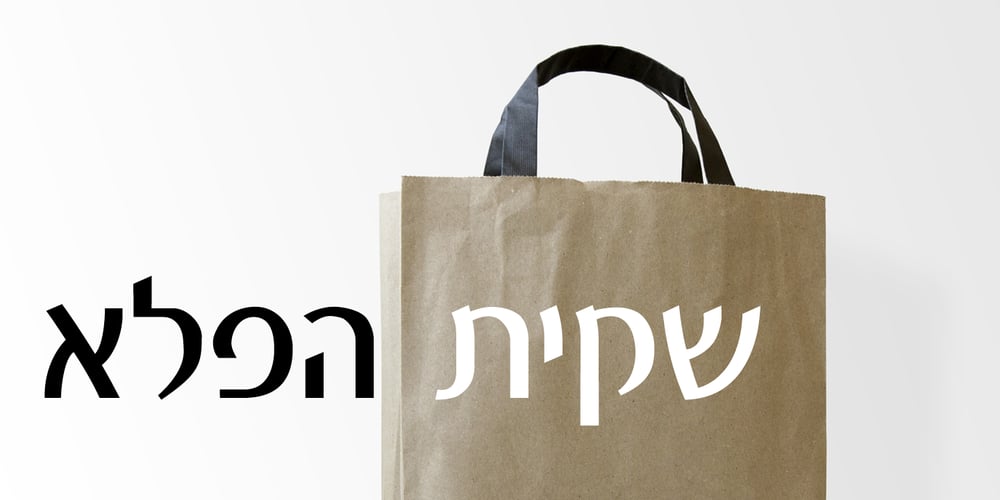
Portal
Portal font
Portal Font Family was designed by Zvika Rosenberg and published by Masterfont. Portal contains 2 styles and family package options. Geometric forms make this elegant font family a great companion for titles, invitations and signs, indoor and outdoor.